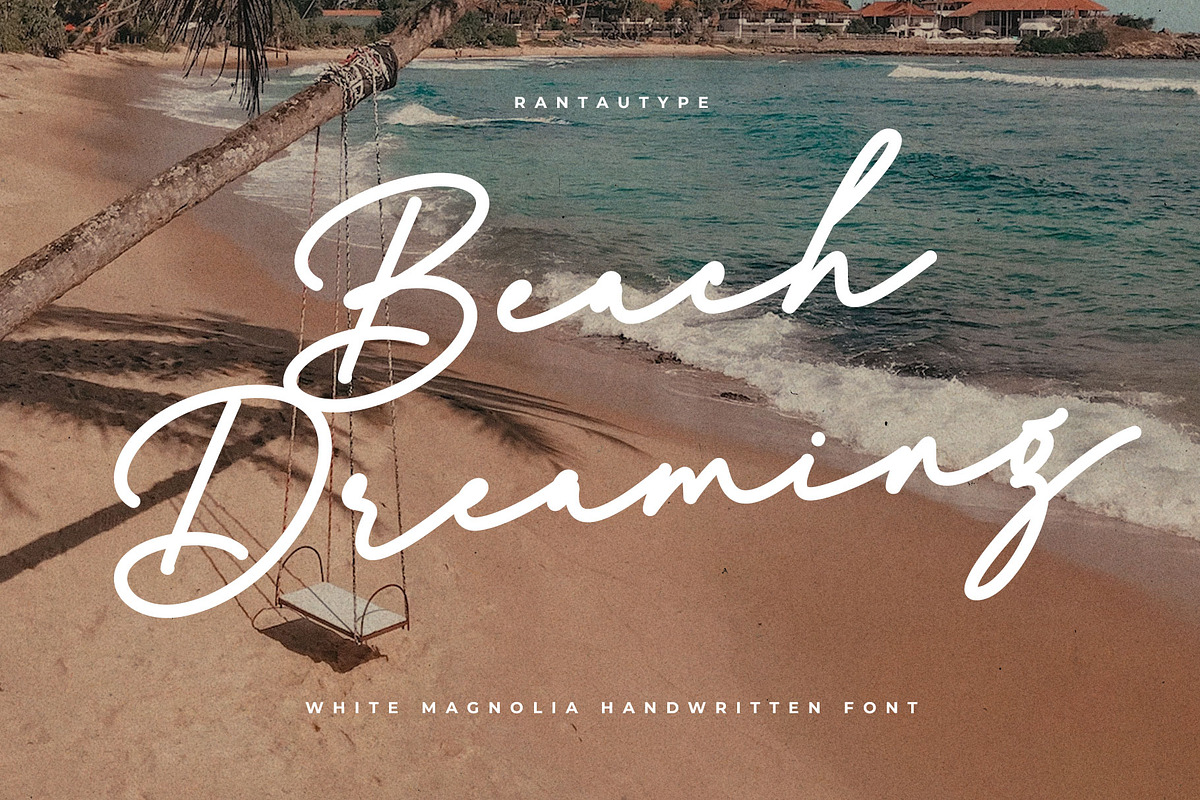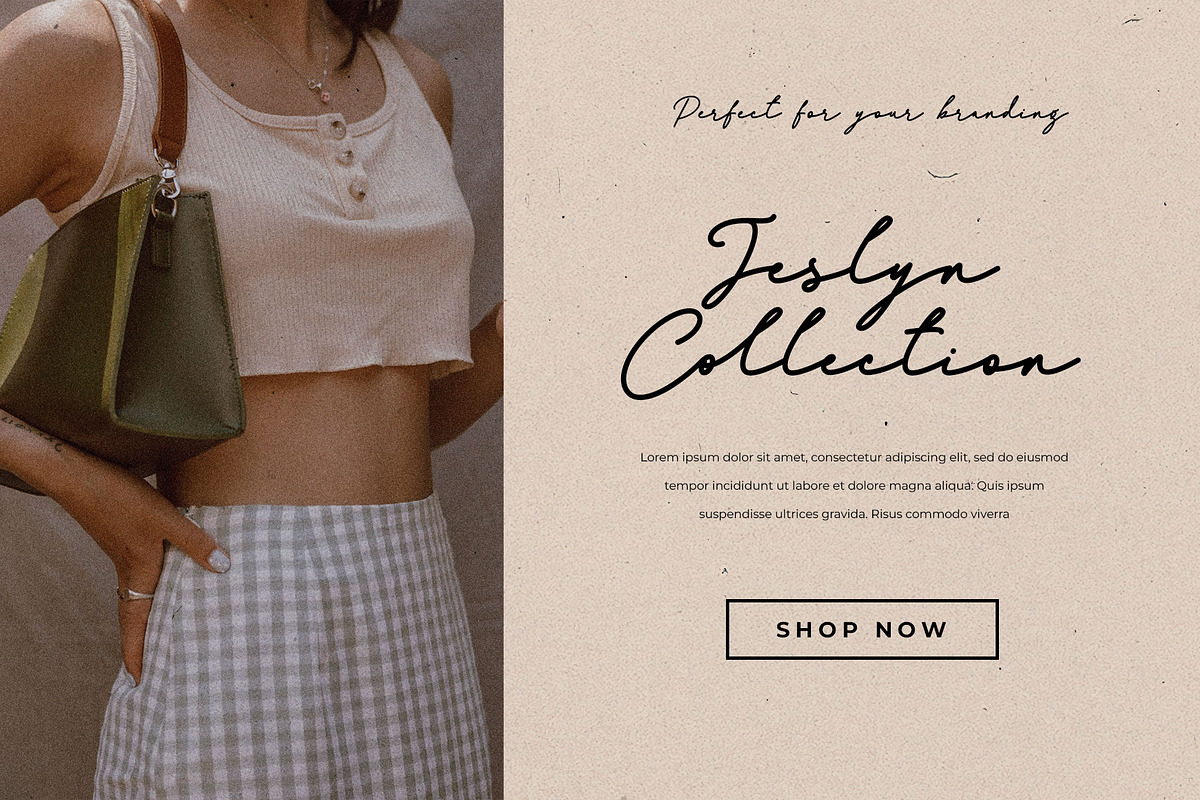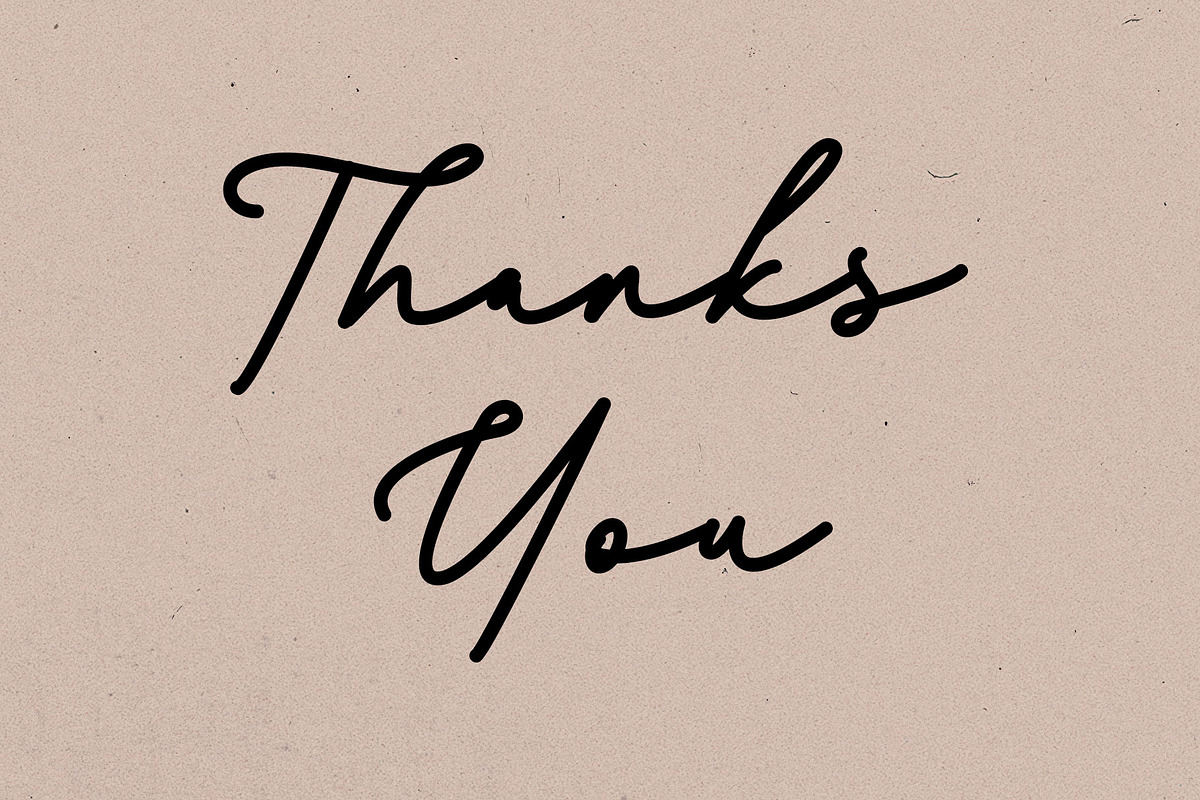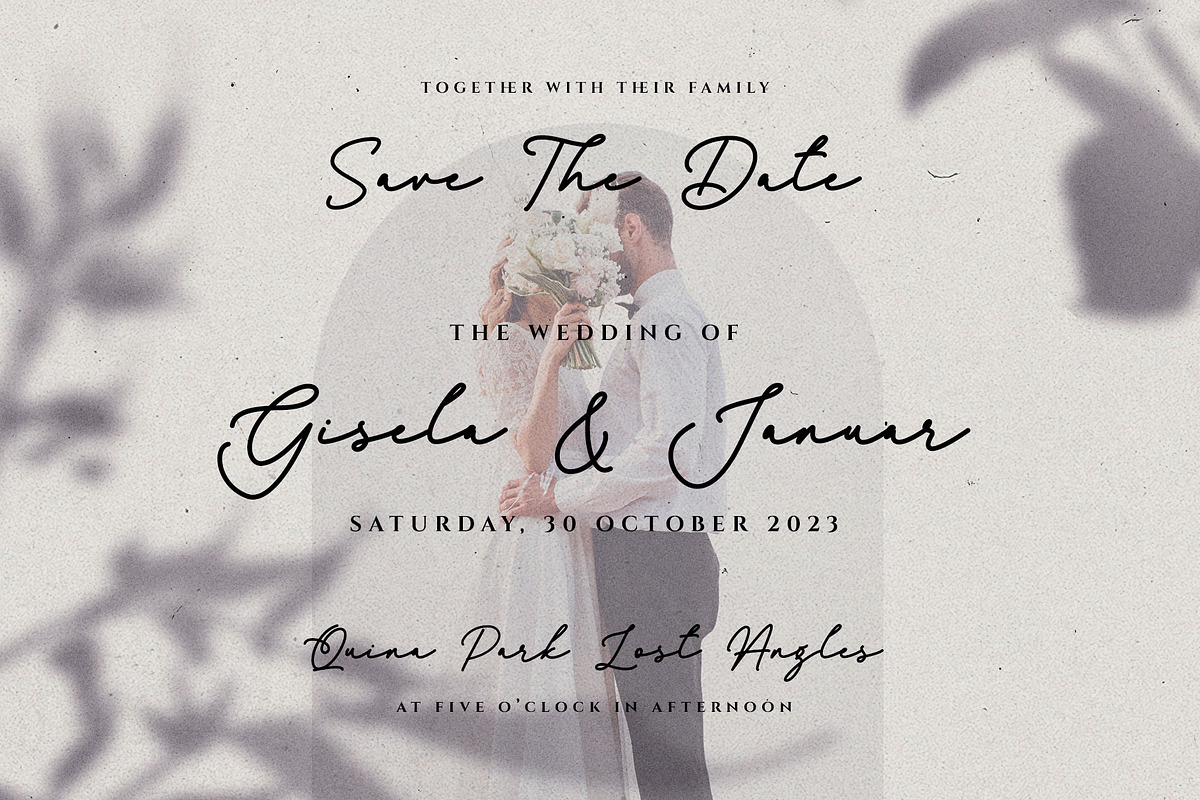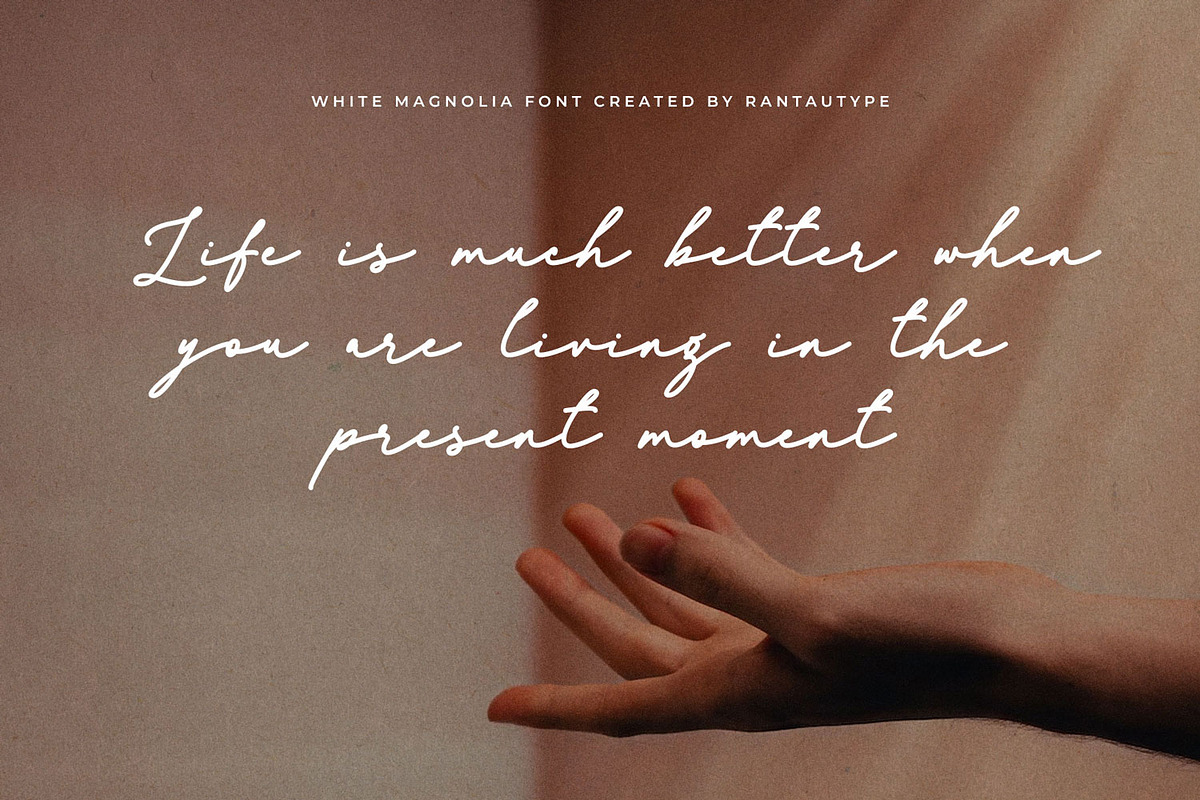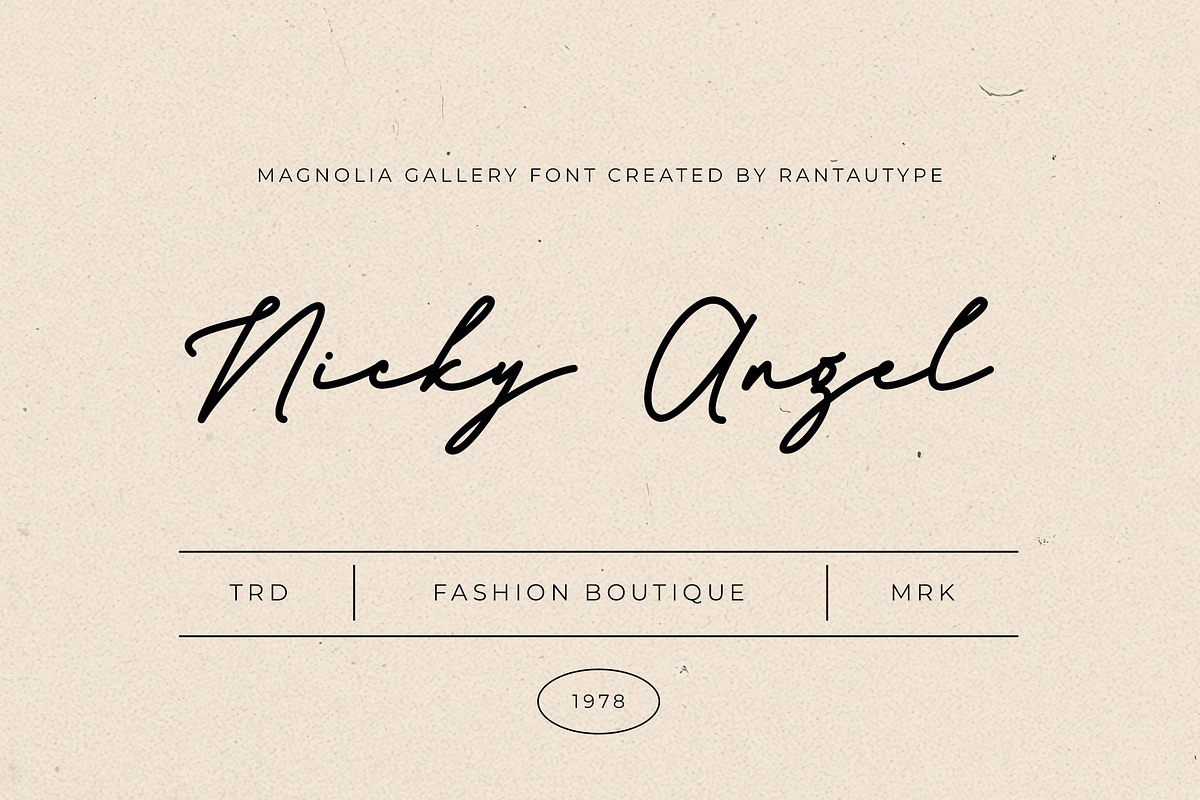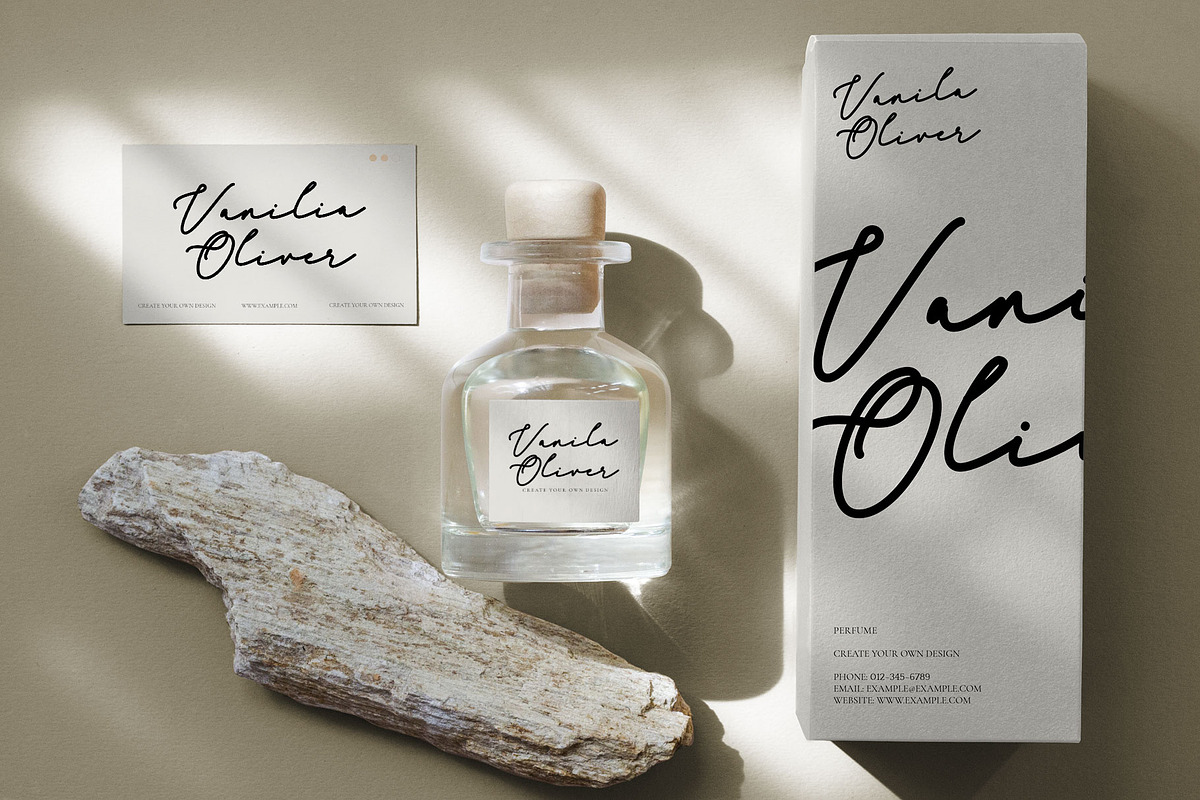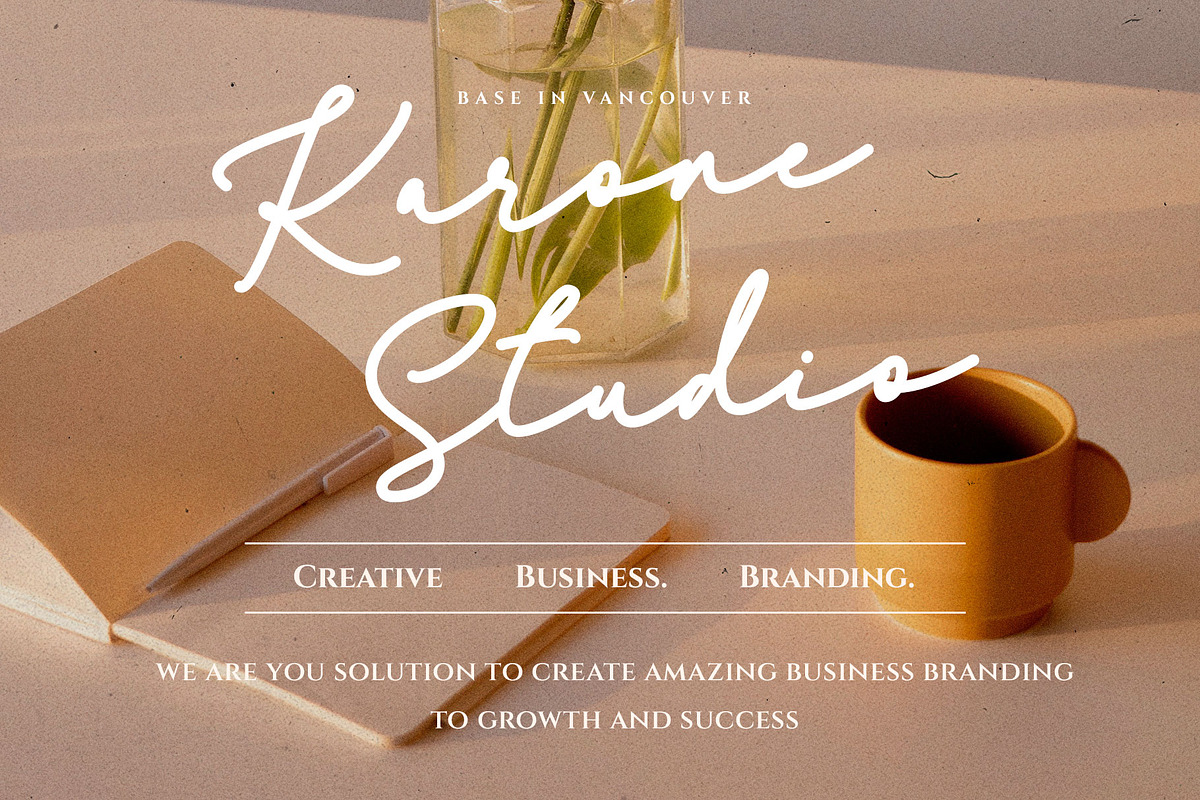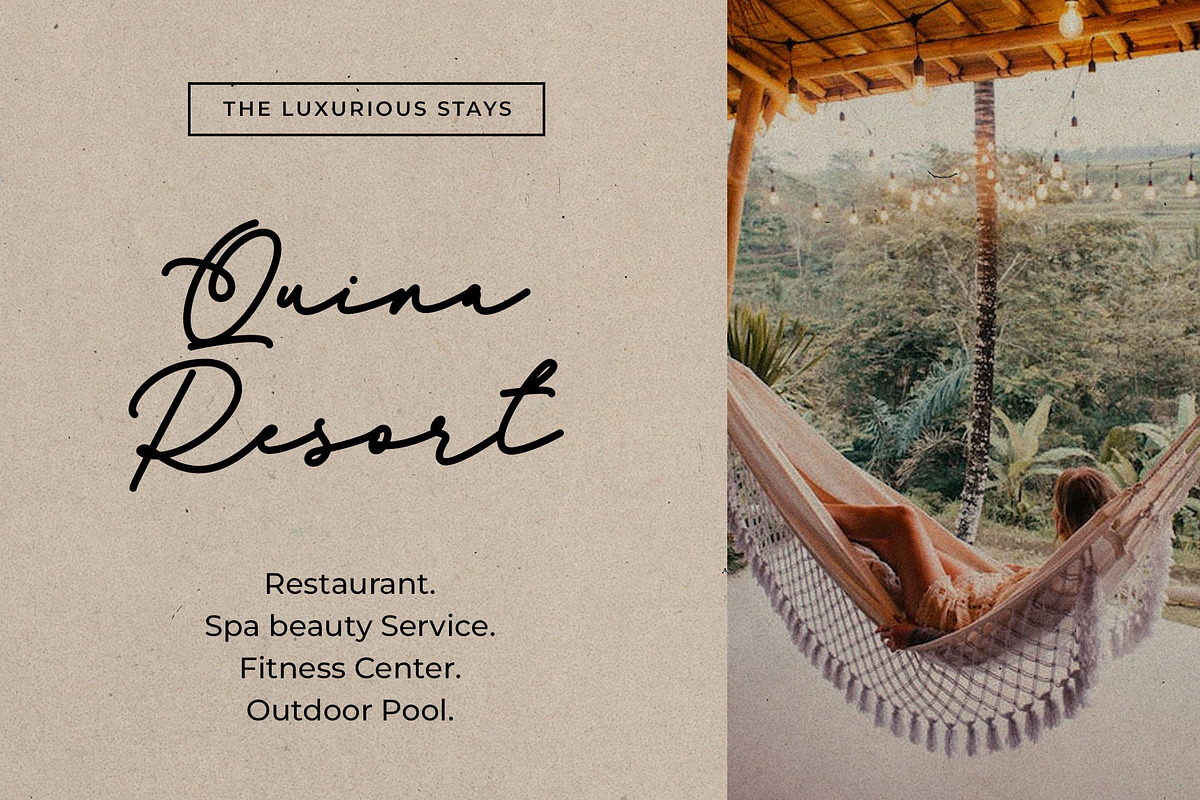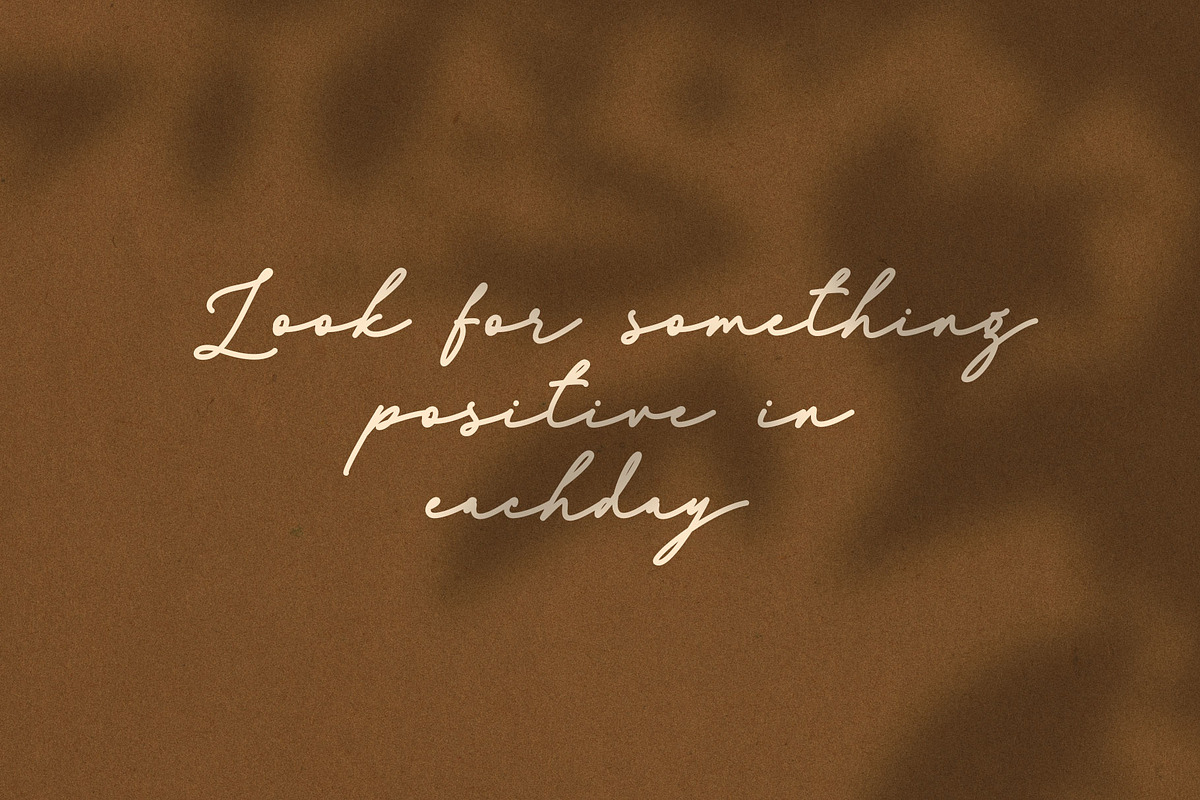
White Magnolia Handwritten Font
Hi Ladies and Gentleman ! Proudly present handwritten font “White Magnolia” for you business.
White Magnolia - modern style font which can be interpreted professional. We keep this font looks modern, readable, stylish, catchy and easy to use. White Magnolia also include multinggual support.
White Magnolia - is the great choice for watermark on photography, branding, wedding event, signature or signature logo design, quotes, album cover, magazine, business card and many other design project. White Magnolia here to make your work to high level!!!
- Standar character A-Z and a-z
- Ligature and Alternate
- Multilinggual support